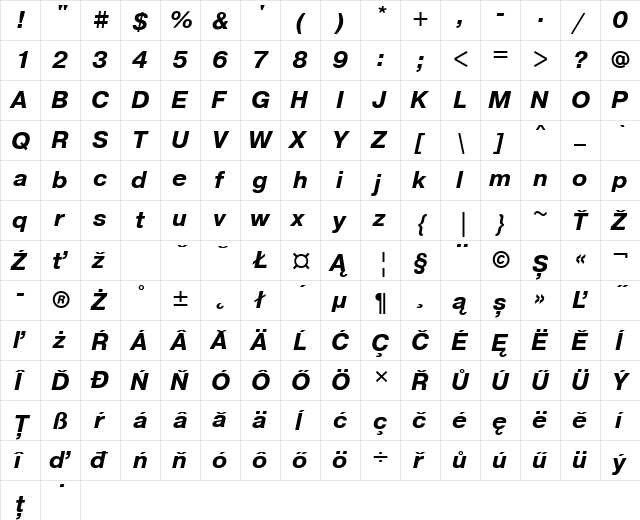
PragmaticaETT BoldItalic
Design Context for PragmaticaETT Typeface
PragmaticaETT offers clean, dependable letterforms without strong stylistic allegiance, making it a practical choice for designers who need flexibility. Its italic angle brings a sense of urgency and motion to the letterforms. Its bold stroke weight gives it real presence on the page.
Pro Tip: Use PragmaticaETT for emphasis, pull quotes, and subheadings where its slanted energy can add rhythm to the layout.